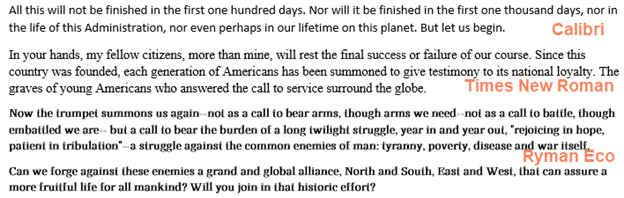
Ryman Eco is an Windows/Mac font which the makers say uses a third less ink or toner than regular fonts.
In smaller sizes it looks normal but as the point sizes grow you can see the difference. Ryman Eco is ‘hollow’ with gaps in the letter strokes.
At regular text sizes (e.g 9 to 13 points) most readers may not notice the difference. Though it’s obvious when put side-by-side with regular fonts like Calibri (top paragraph) and Times New Roman (second para).
Just looking a Ryman Eco (last two paras above) in smaller sizes we’re not convinced there’s an ink/toner saving. But the high cost of supplies for larger print runs means anything is worth a try.
Save on larger print runs
If you’re printing out many copies of a document, maybe give Ryman Eco a go?